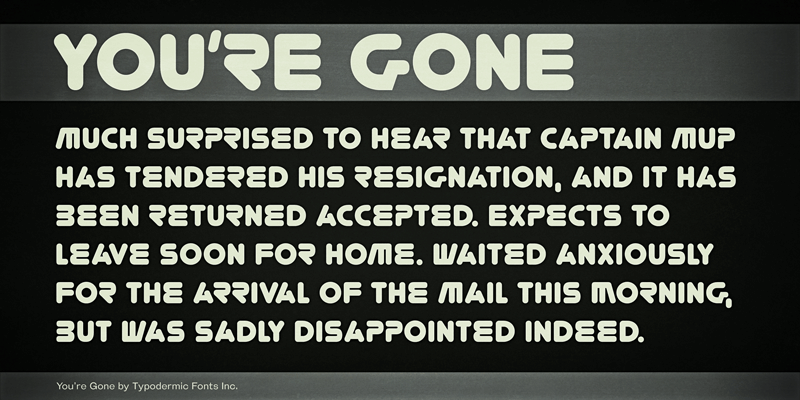
Preview and download You're Gone Font. Created by Typodermic Fonts in Techno Sci-fi styles with 100% Free license.
You’re Gone is a rounded, heavy, headline blaster. This font includes a license that allows free commercial use: sometimes referred to as a desktop license. This allows you to install the font on a computer and use it to create posters, web graphics, game graphics, t-shirts, videos, signs, logos and more. Read the license agreement for details. If you'd like to embed this font in an app, ebook, on the web or anything that's not covered by the desktop license agreement, visit the link below. You'll find distributors who offer different types of licenses or you can contact me for help. http://typodermicfonts.com/youre-gone/ |